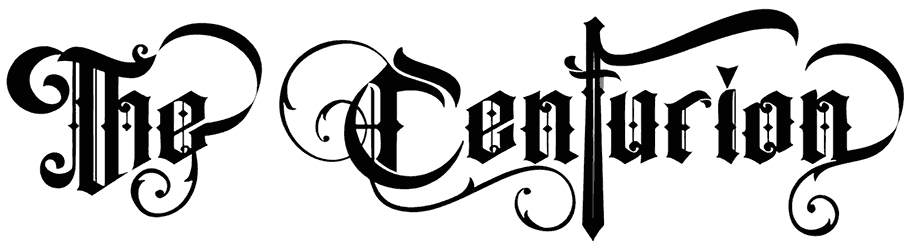
The Centurion Font
The Centurion is probably one of the most creative Gothic medieval fonts you may have come across! The powerful artistic design of the curly, pointy characters adds a traditional feel. Your great typography will have an embellishing look despite being difficult to read.
This font can be used for tattoos as its playful and trustworthy letterforms are all available. A few places to give this old-fashioned font a try would be games, movies, posters, websites, branding, art figures, and more.
The Centurion is a blackletter gothic, classic and artistic style font, perfect to be applied to your design projects.
Add this beautiful display font to each of your creative ideas and notice how it makes them stand out!